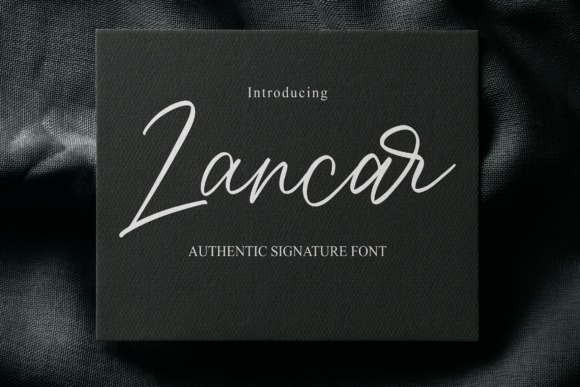
Embark on a captivating journey into the world of Lancar, a script font that exudes elegance and reflects the essence of modern calligraphy. Designed by the skilled artisans at Colative, this font embodies uniqueness, combining a free-flowing style with the charm of handwritten letters.
Unleash your creativity and elevate your projects to new heights with Lancar, the ultimate tool for crafting distinctive logos that resonate with your brand's identity. Create signatures that radiate sophistication and leave a lasting impression on your audience. Whether you're a budding entrepreneur, a seasoned designer, or simply someone with a passion for creating beautiful things, Lancar is the key to unlocking your artistic potential.
With its delicate strokes and graceful curves, Lancar transforms ordinary words into works of art. Its versatility knows no bounds, making it an ideal choice for a wide range of projects. From enchanting wedding invitations and heartfelt greeting cards to eye-catching posters and social media graphics, Lancar breathes life into your words, captivating your audience with its timeless beauty.
Lancar is more than just a font; it's an experience. It's a journey into the realm of self-expression, where you're free to let your imagination run wild and create designs that are uniquely yours. Join the legion of satisfied users who have embraced Lancar's allure and transformed their creative visions into unforgettable realities.